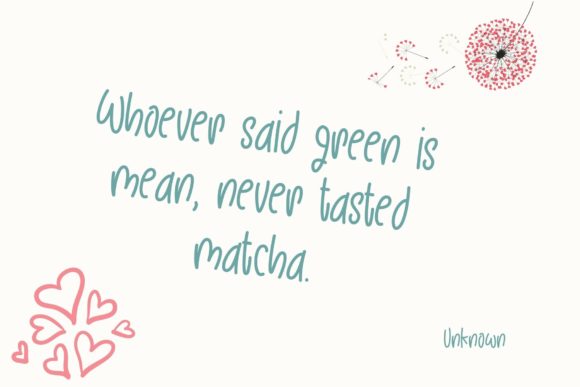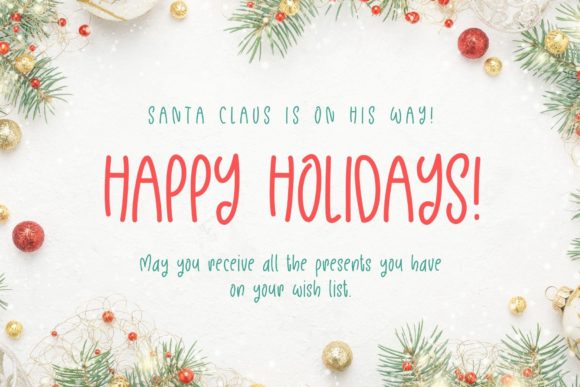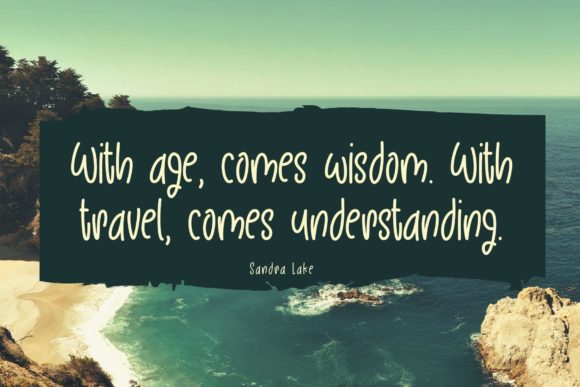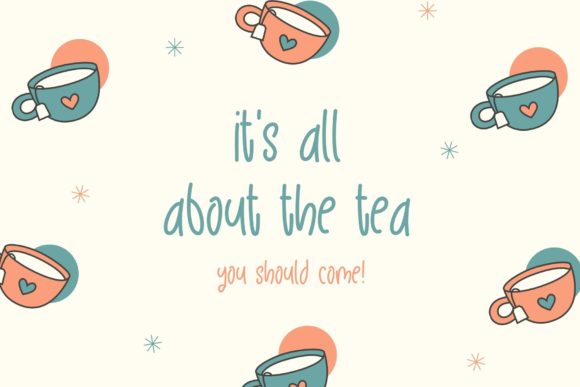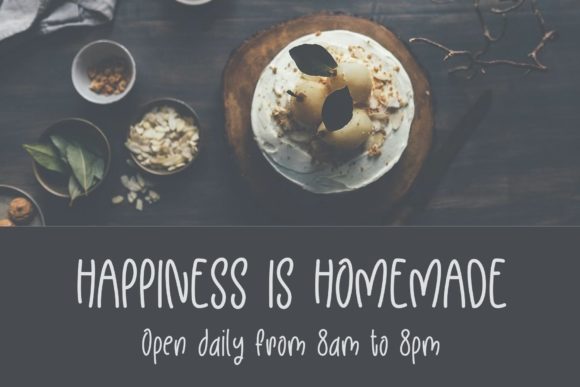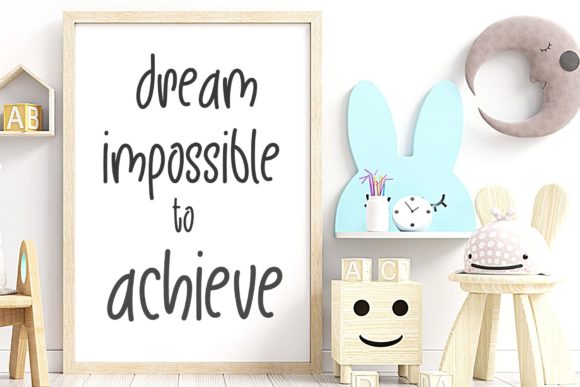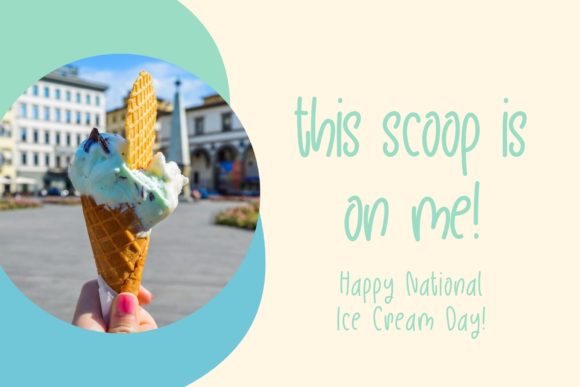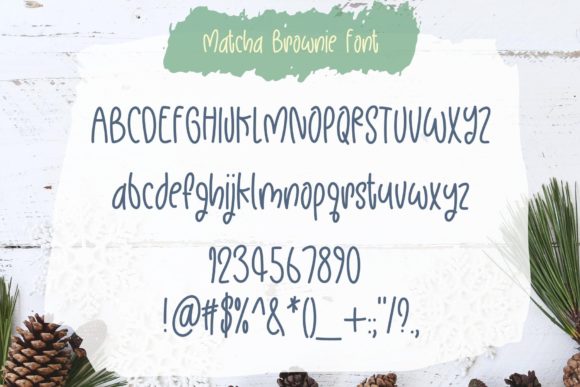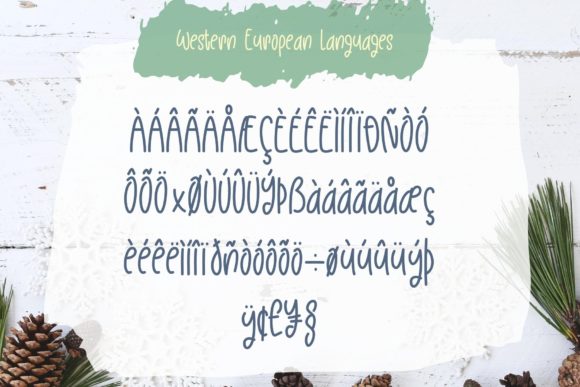
Matcha Brownie Font
About Matcha Brownie Font
Absolutely! Matcha Brownie is a font that brings a touch of chic and fun to your design projects. With its handwritten style and friendly feel, this font offers a versatile and dynamic aesthetic that’s perfect for a wide range of creative endeavors.
Imagine using Matcha Brownie for your branding materials. Whether it’s your company’s logo, business cards, or promotional materials, this font adds a unique flair that sets your brand apart. Its playful yet chic demeanor creates a memorable impression, making your brand more engaging and approachable.
For social media content, Matcha Brownie can be your secret weapon. Picture using it for quotes, headings, and blog posts. Its lively and expressive strokes infuse your text with character, capturing the attention of your audience and conveying your messages with style. In a sea of digital content, Matcha Brownie adds a refreshing twist that makes your posts stand out.
Invitations take on a whole new level of charm with Matcha Brownie. Whether it’s a wedding, a birthday party, or a special event, this font brings a sense of excitement and personality to your invitation designs. The combination of chic and fun elements in Matcha Brownie makes your invitations feel more than just pieces of paper; they become tokens of anticipation and celebration.
Crafting enthusiasts will also find Matcha Brownie to be a valuable asset. Whether you’re creating handmade items, DIY projects, or personalized gifts, this font adds a touch of handmade charm that resonates with authenticity. It’s like having your own calligrapher crafting text with a whimsical and stylish flair.
And let’s not forget its impact on quotes and motivational content. Matcha Brownie has the ability to transform ordinary words into visually appealing pieces of art. When you pair meaningful quotes with its unique style, the result is a captivating visual experience that resonates deeply with your audience.
The versatility of Matcha Brownie truly shines through in its ability to adapt to various design contexts. Its elegant yet playful nature ensures that it suits both formal and informal projects. It effortlessly transitions from digital to print, making it a reliable choice for a wide array of mediums.
In a world where visual content is key, Matcha Brownie brings a touch of personality and flair that’s hard to ignore. It’s a font that can elevate the mundane and turn it into something exciting and engaging. So, if you’re looking to infuse your design projects with chic and fun elements that come together seamlessly, Matcha Brownie is the font that will make your creative ideas come alive in the most delightful way.